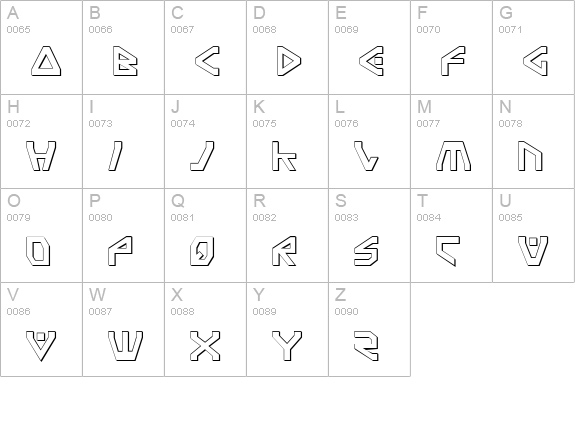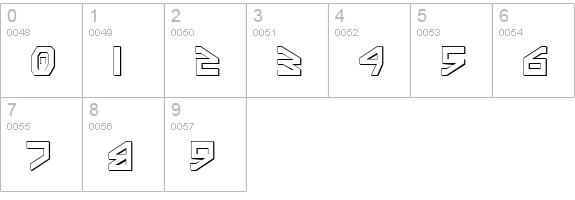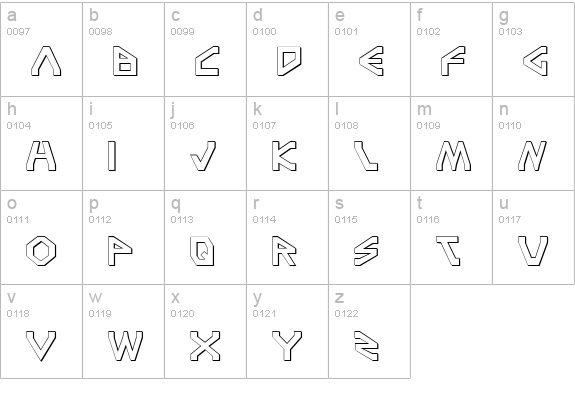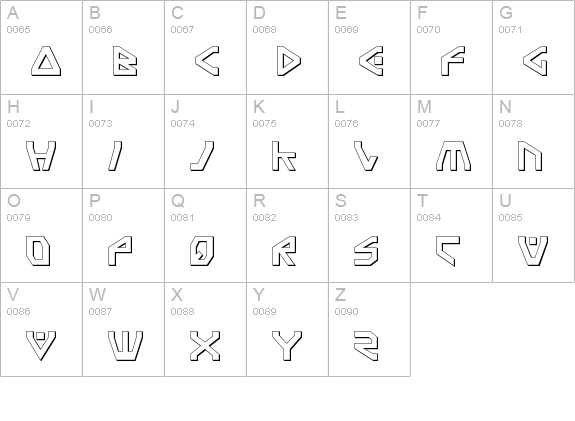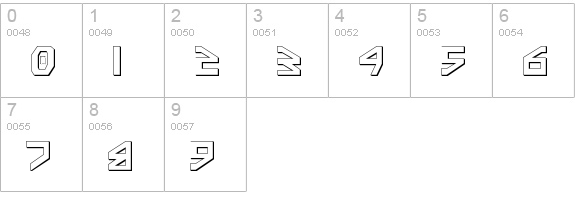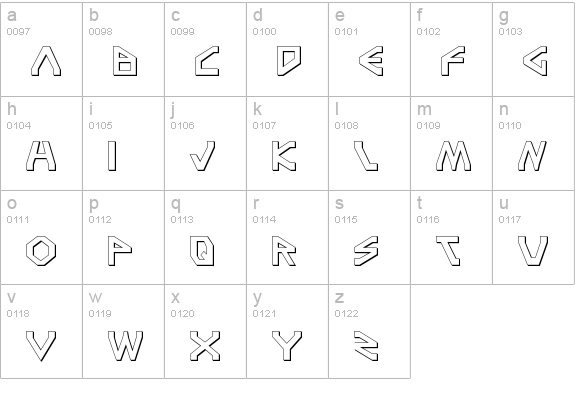
Introducing Terra Firma Shadow font - a versatile and captivating typeface that combines elegance with a touch of mystery. This unique font is designed to add depth and dimension to your projects, making them stand out from the crowd. Terra Firma Shadow font captures attention with its intricate and finely detailed letterforms. Its bold and sharp edges create a strong visual impact, while the subtle shadows add a sense of depth and sophistication. This font is perfect for headlines, logos, posters, and any other design where you want to make a bold statement. One of the most exciting aspects of Terra Firma Shadow font is that it is free to download at FontsMarket.com. This means that you can add this stunning font to your design arsenal without any cost. Whether you are a professional designer or a passionate hobbyist, having access to high-quality fonts like Terra Firma Shadow font can take your creations to the next level. With its wide range of characters, including uppercase and lowercase letters, numbers, and punctuation marks, Terra Firma Shadow font offers endless possibilities for creativity. It effortlessly blends modern aesthetics with a touch of retro charm, allowing you to create designs that are both timeless and contemporary. Whether you want to add a touch of elegance to a wedding invitation, create a striking logo for your business, or design eye-catching packaging, Terra Firma Shadow font is the perfect choice. Its versatility and unique style make it suitable for a wide range of design projects, ensuring that your creations will always leave a lasting impression. Don't miss out on the opportunity to enhance your design projects with this exceptional font. Download Terra Firma Shadow font for free at FontsMarket.com and unlock a world of creative possibilities. Let Terra Firma Shadow font be the secret weapon in your design toolkit, helping you create captivating visuals that leave a lasting impression.